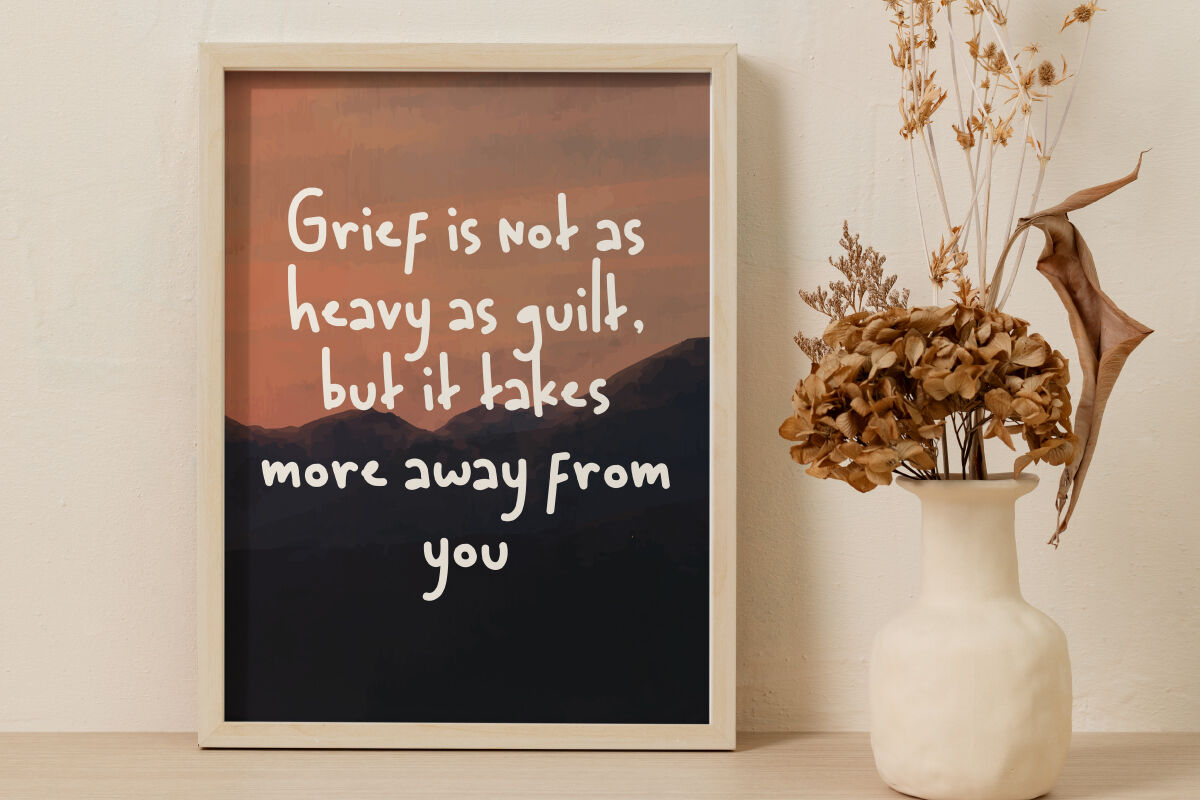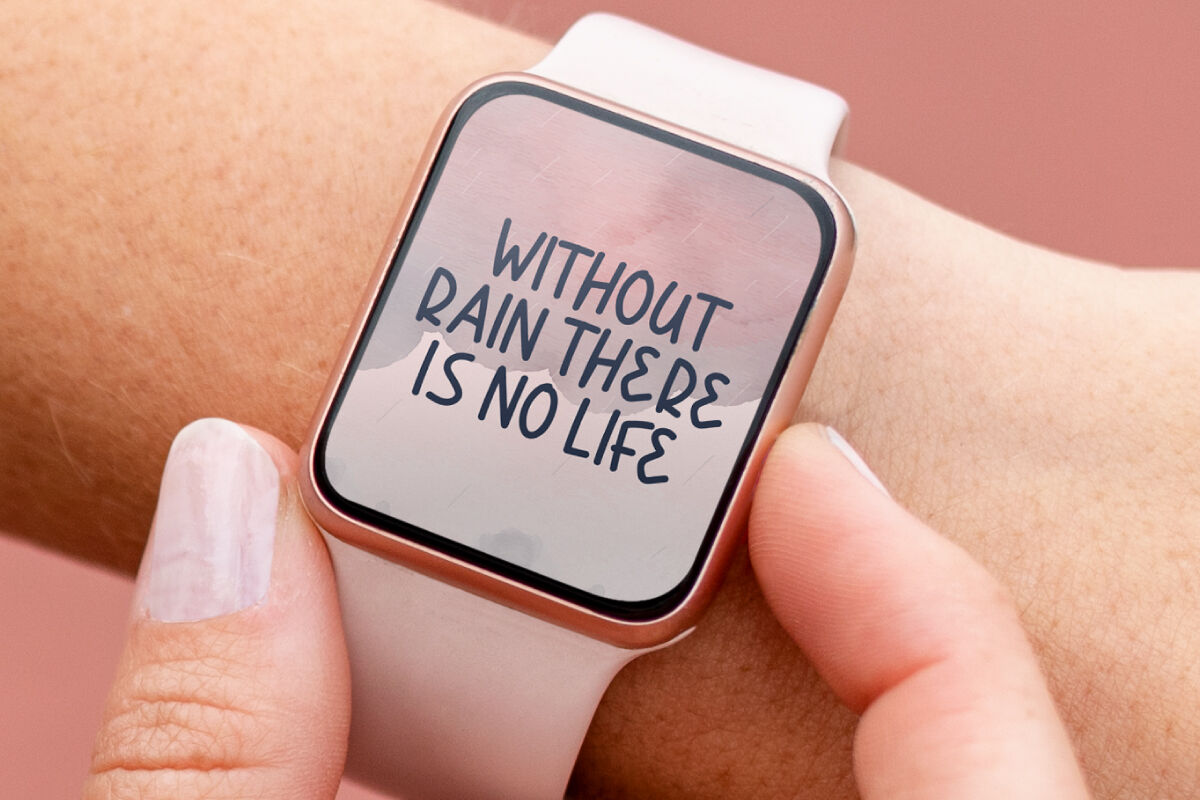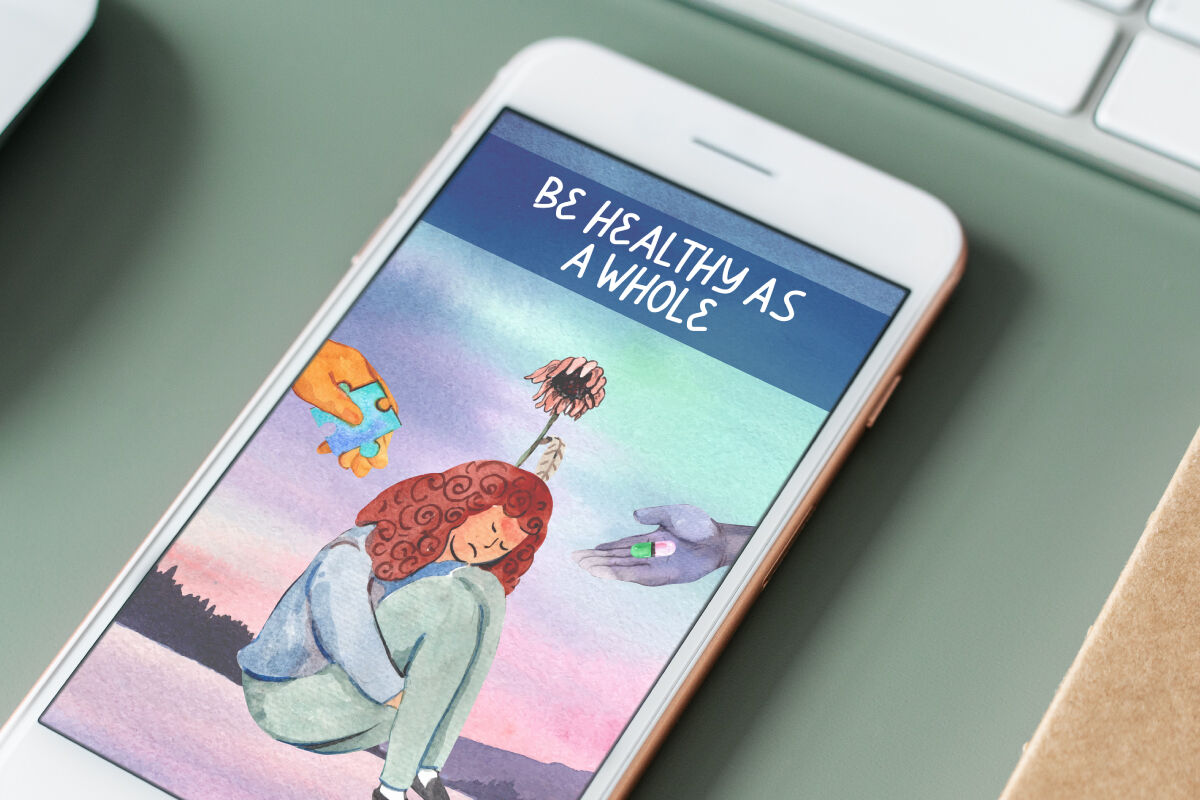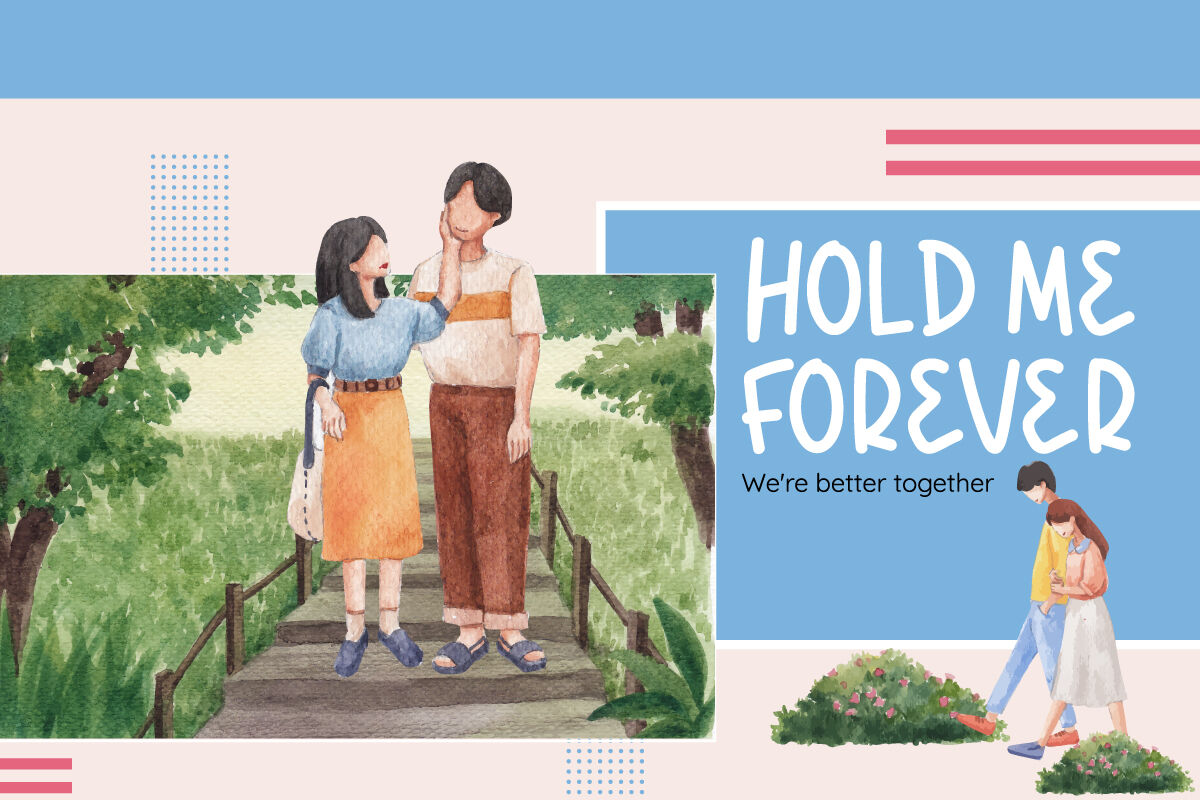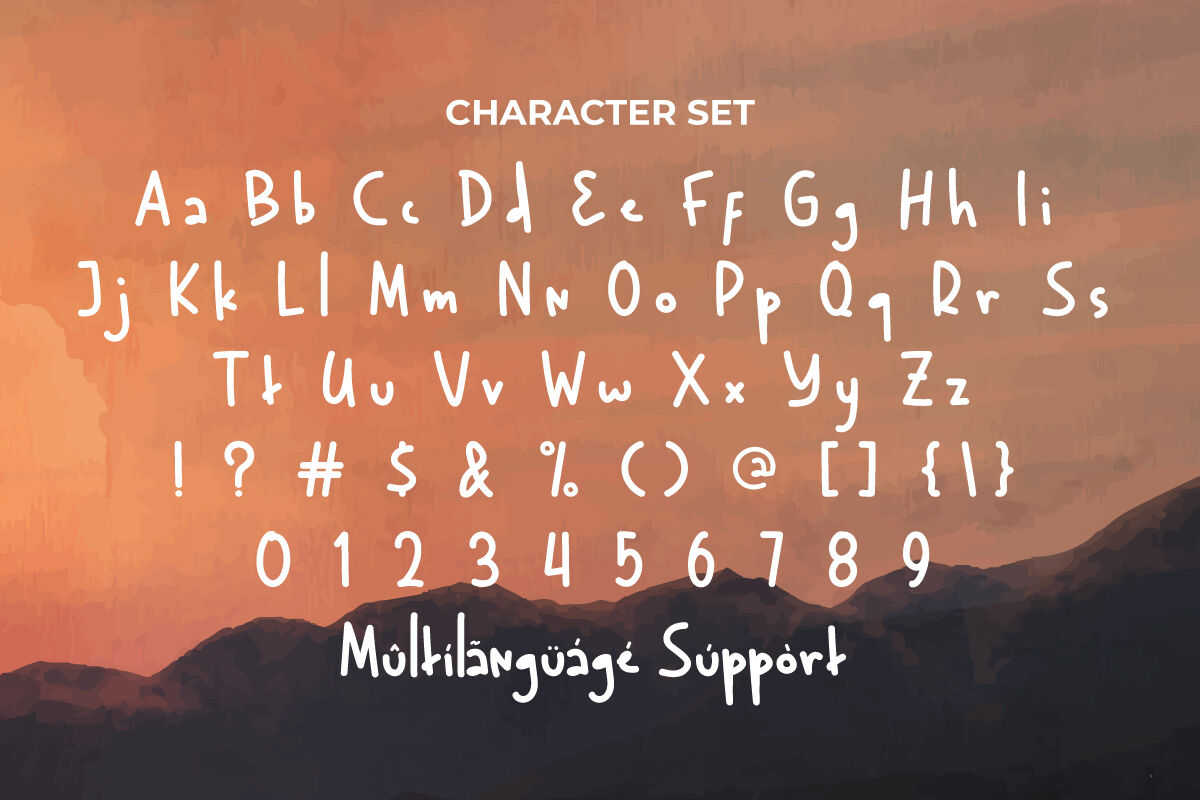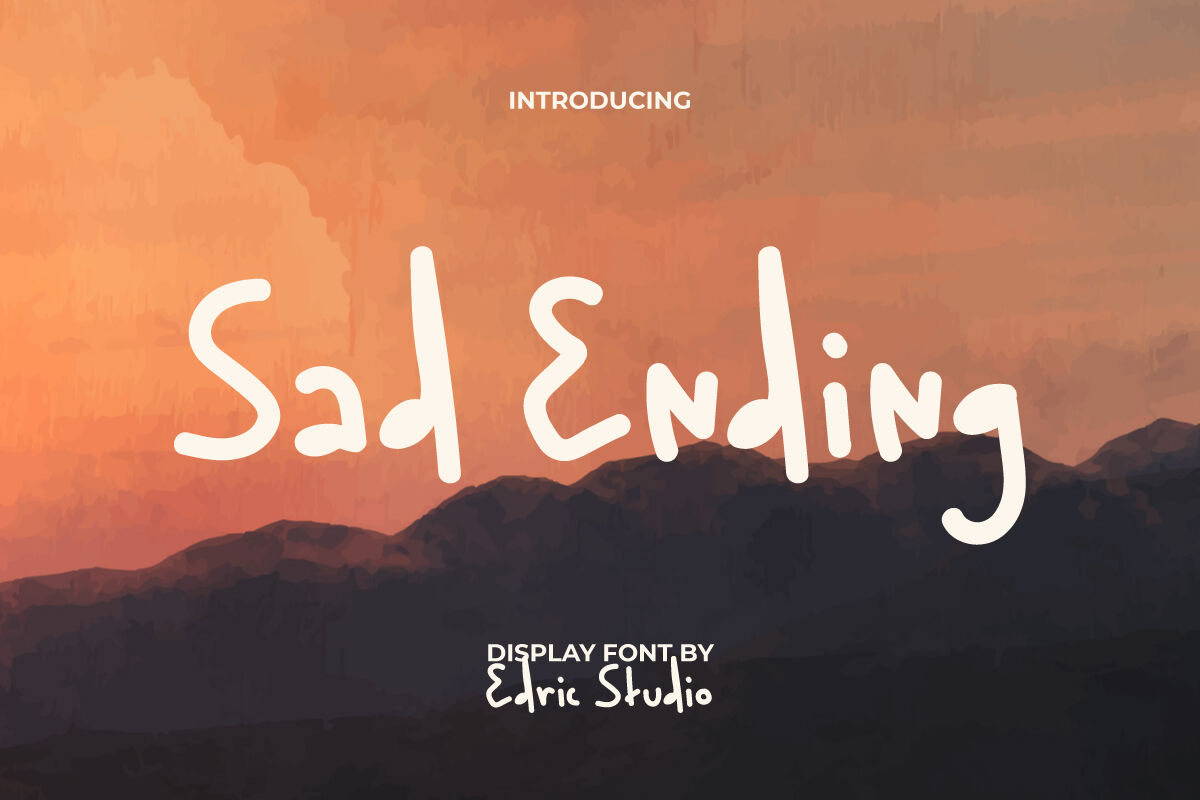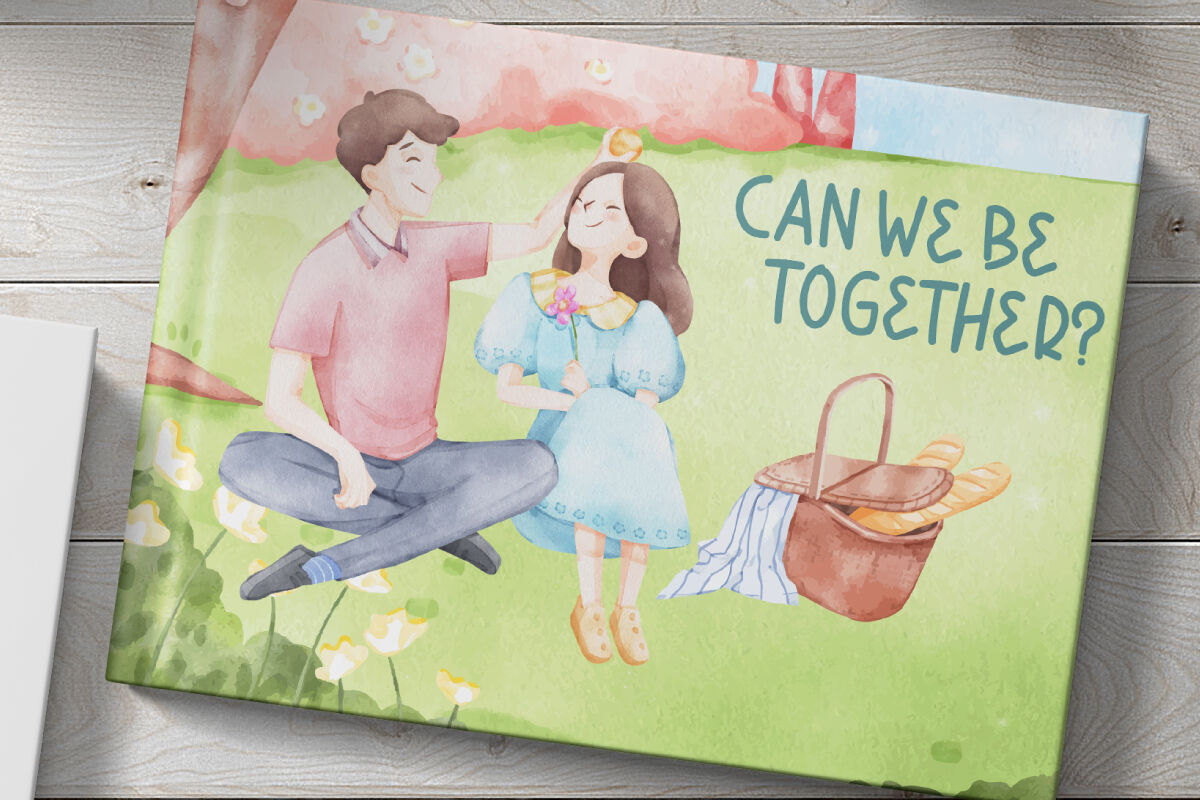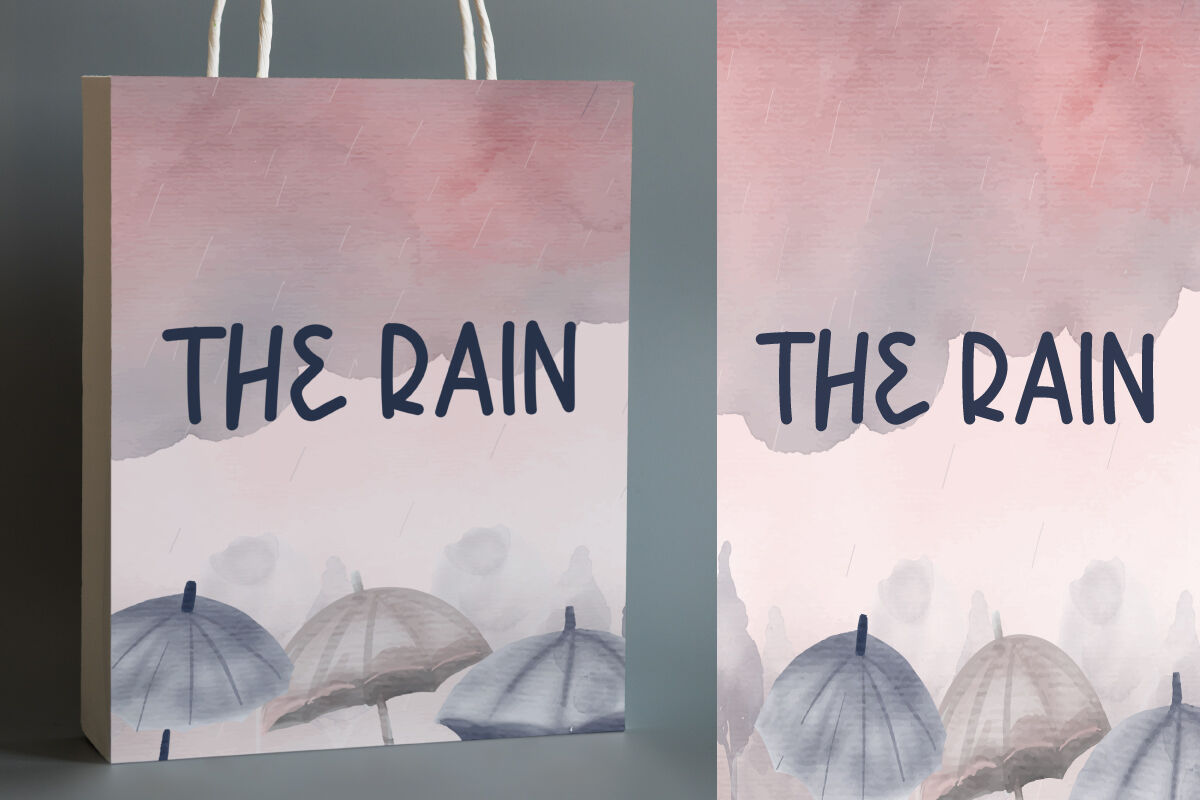
Sad Ending Font is a casual romantic handwriting display font created in an cute style. It looks clean with a neat arrangement made by hand, producing letters that are easy to read. It will bring a different touch to whatever your design is, such as apps, blogs, brochure, cover, flyer, header, logos, packaging design, poster, price label, quotes, screen print, signage, stationery, sticker, title, website, and more.
Sad Ending Font comes with a full set of Uppercase and Lowercase letters, Number, Punctuation and Symbol. Even though the theme is a sad situation, it can always be adapted into projects for whatever industry it is, such as ads, author, content creator, craft, fashion, graphic design, movie, performing arts, printing, publishing, web designer, writer, etc.
Sad Ending Font also supports multilingual characters which are ready to use either on Windows or Mac machines with a simple installation. Combine different characters for a bespoke, handcrafted feel. It’s tested to work well in the Adobe Apps (Illustrator, Adobe InDesign, Adobe Photoshop) even work on Microsoft Word. All of these characters are available through the glyph panel, moreover each letter has its own unicode (PUA) so you can access all the characters easily.